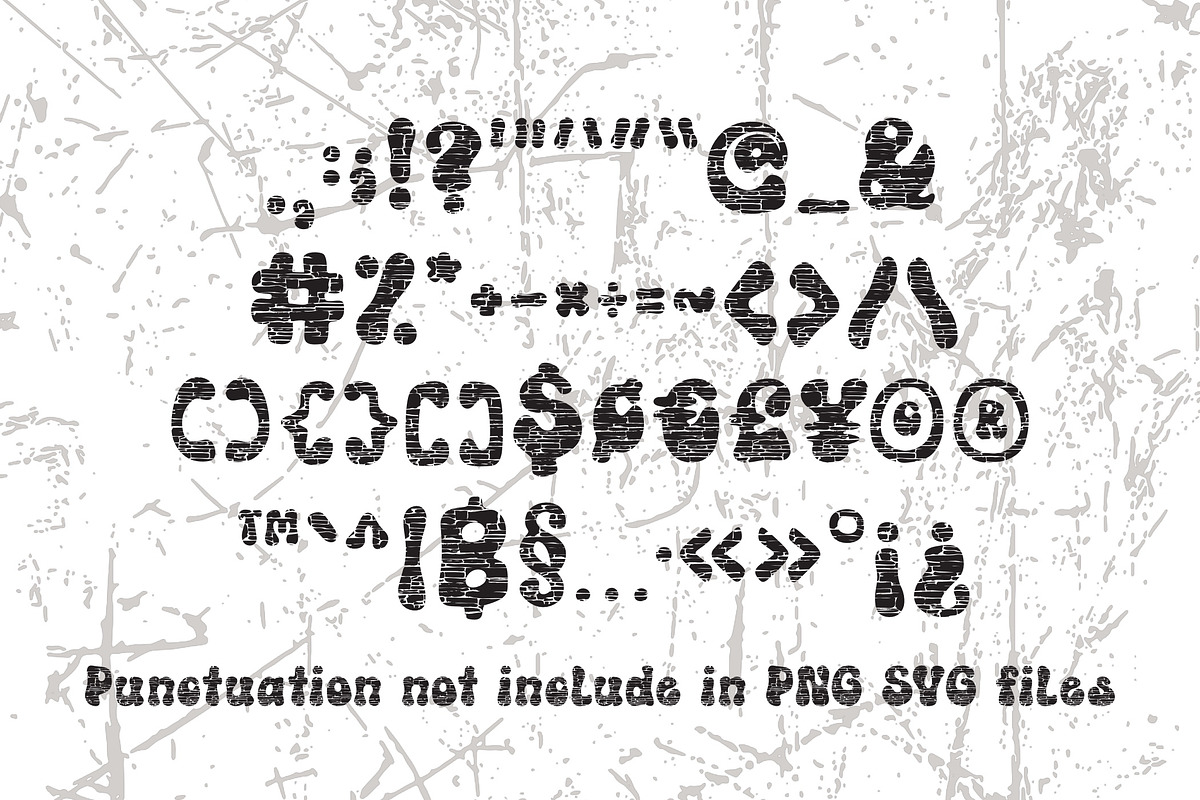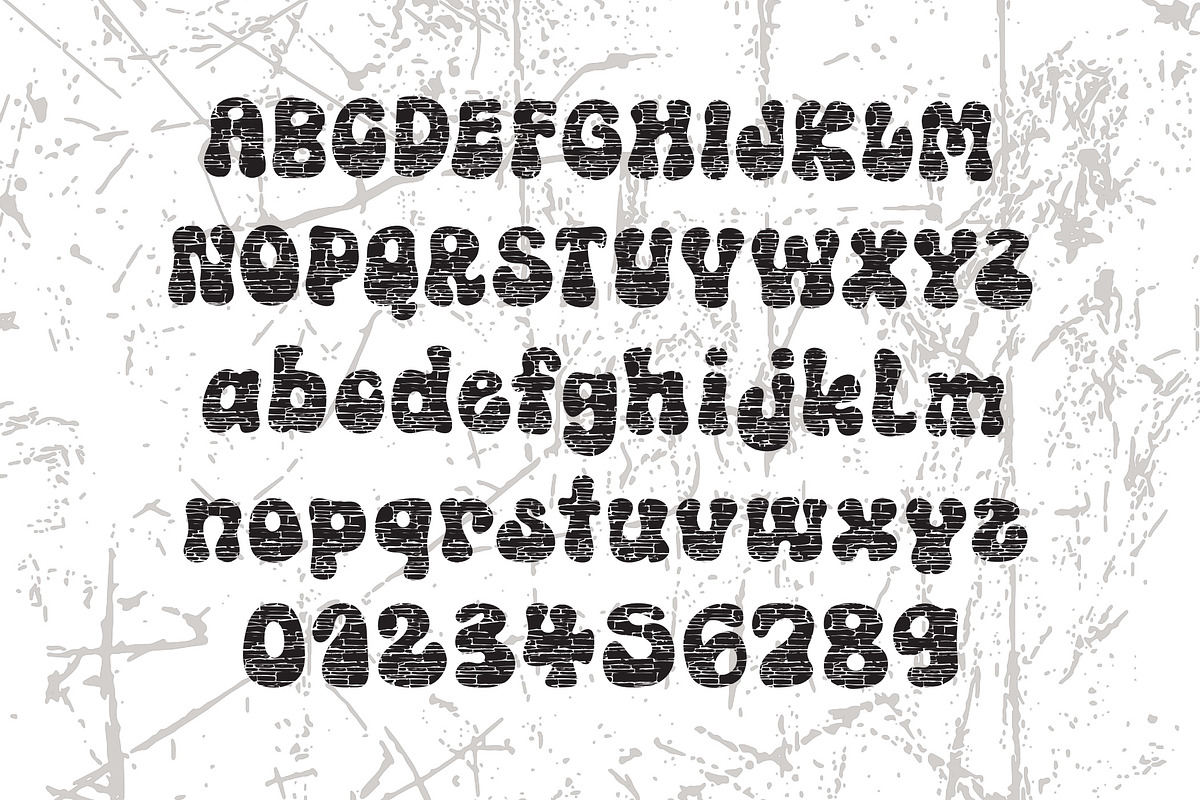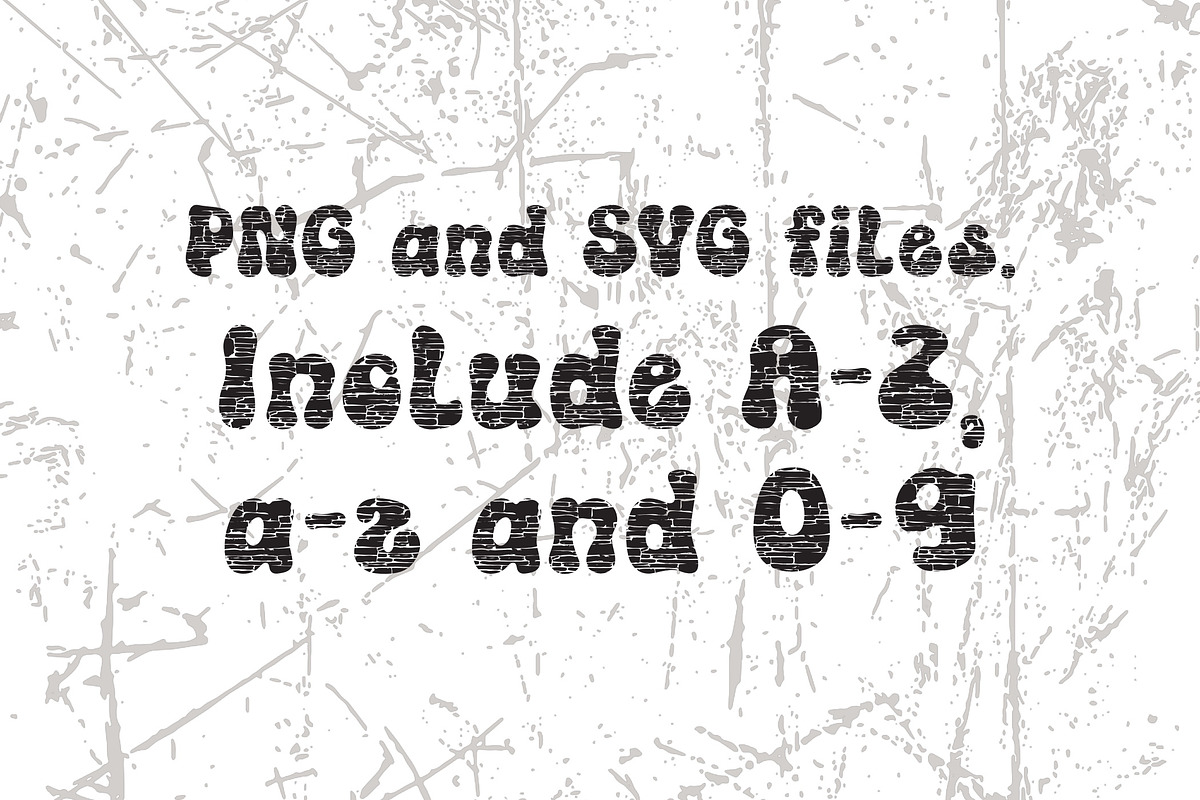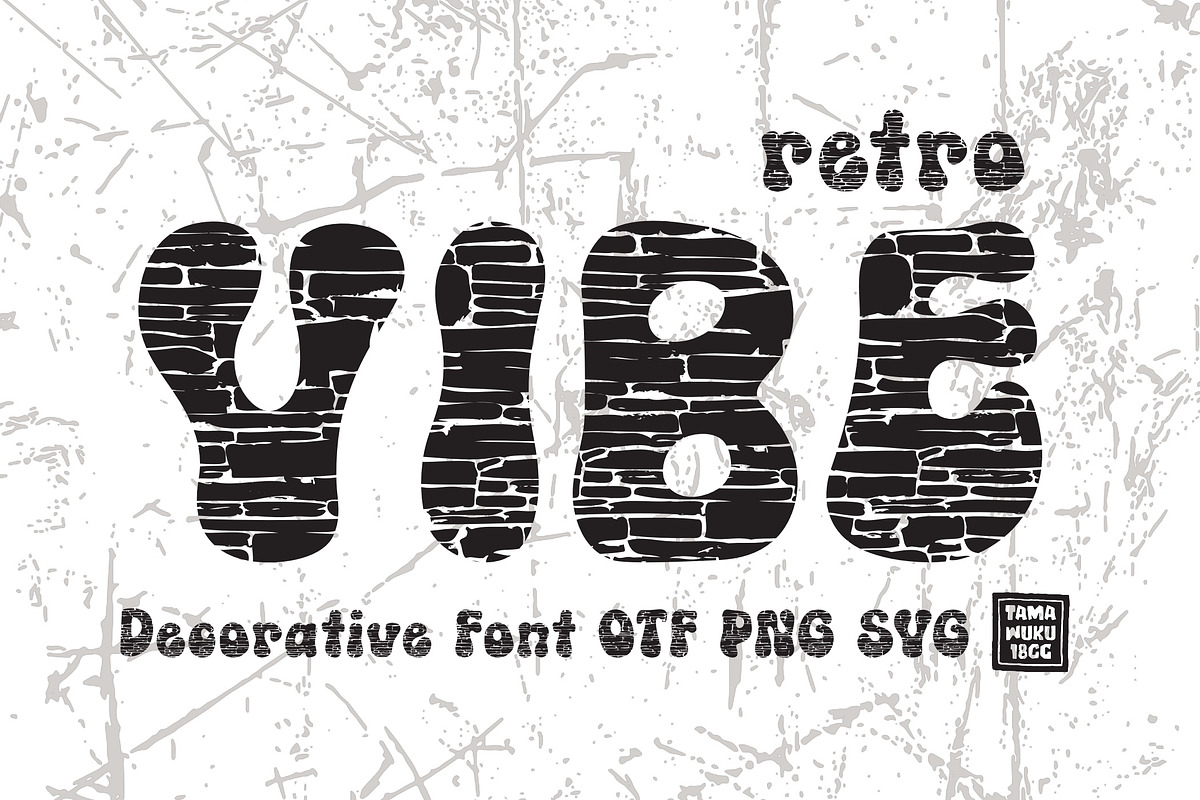
Retro Vibe OTF PNG SVG
Retro Vibe is a Decorative Font. This font is the perfect fit for all of your logos, branding, social media, crafty DIY projects, and much more!